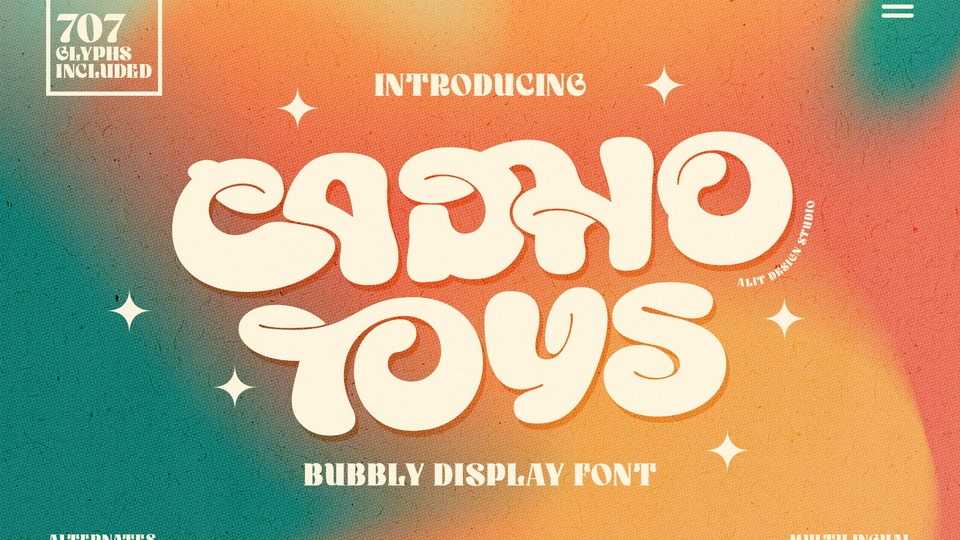
Download Cadho Toys font, an exciting and playful bubble display typeface that will add a touch of whimsy to your designs. With its lively appearance, Cadho Toys is perfect for various design projects, especially those aimed at children, toys, games, or anything that requires a cheerful and vibrant aesthetic.